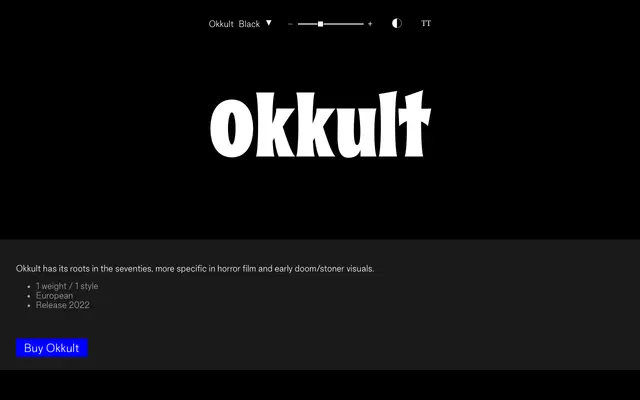
Okkult
A single-weight display typeface drawn from 1970s horror film and early doom and stoner visual culture, released by Good Type Foundry in 2022.
Rooted in the aesthetic language of seventies horror cinema and doom metal typography, this face offers one weight in a distinctly dark, occult-inflected style. Coverage extends to European Latin with 172 accented glyphs, making it serviceable across most Western European languages. The single Black weight limits it to headlines, posters and short display settings where the atmosphere is the point.
A single-weight display typeface rooted in 1970s horror film and doom/stoner visual culture, making it firmly a display face with no body-text application intended.